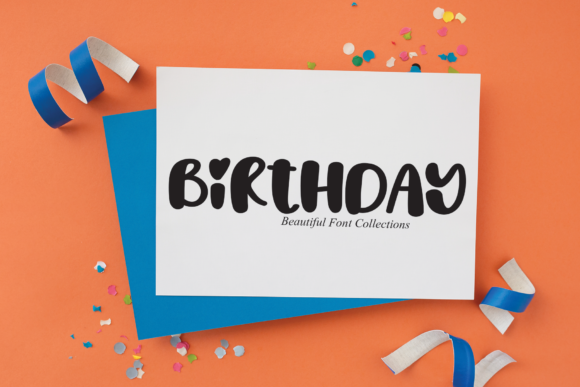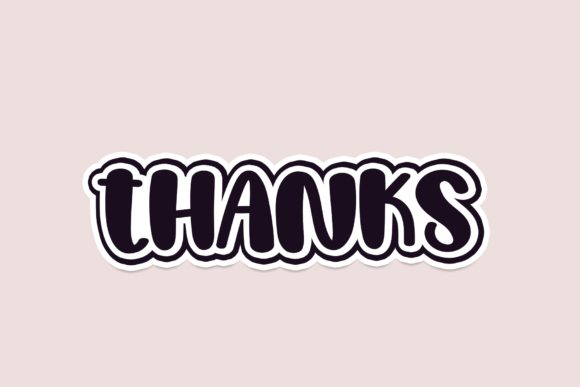
Friday Font
Friday is a bold, and thick font that will help you create fun and playful designs and will look good on a variety of branding and packaging projects.
This chubby font features the perfect combination of fun and creativity to instantly grab anyone’s attention with hearts for dots.